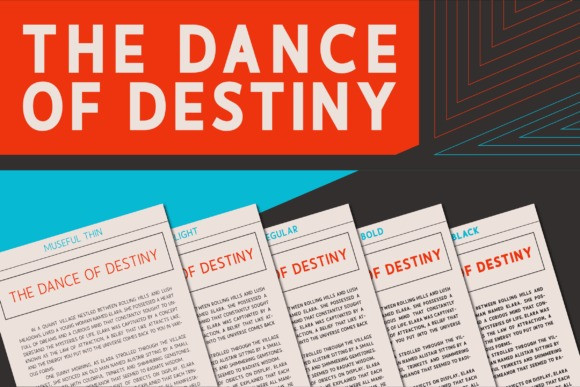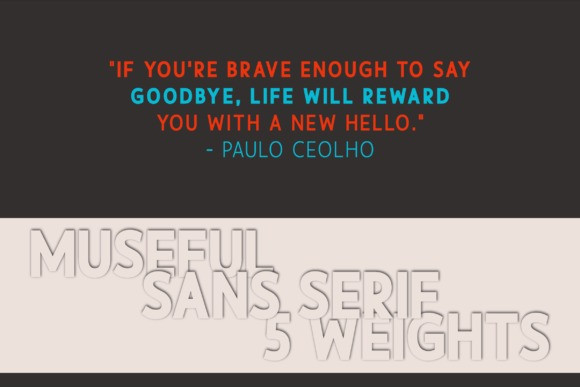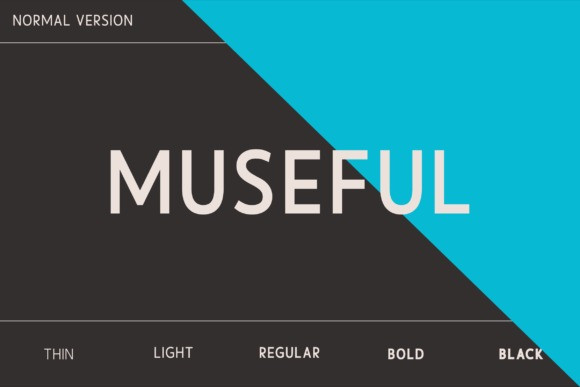
Museful Font
Museful Font, the embodiment of elegance and minimalism. With 5 distinct weights, this sans serif collection perfectly blends modernity and luxury. Crafted with the utmost precision, it easily enhances any project, whether it’s magazines, logos or movie posters. Discover the perfect balance between sophistication and simplicity, allowing your designs to exude timeless charm. Unlock the power of our font family today.